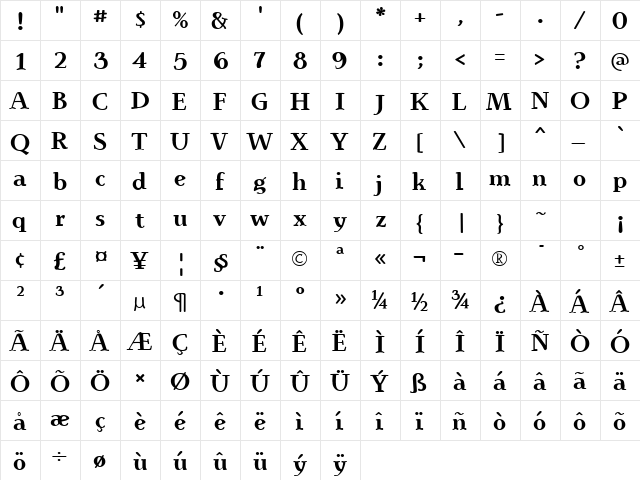
IngrianEuroikaH Bold
Design Context for IngrianEuroikaH Typeface
IngrianEuroikaH takes a measured approach to typography — its balanced proportions and neutral character make it a reliable workhorse for both digital and print work. Its bold stroke weight gives it real presence on the page.